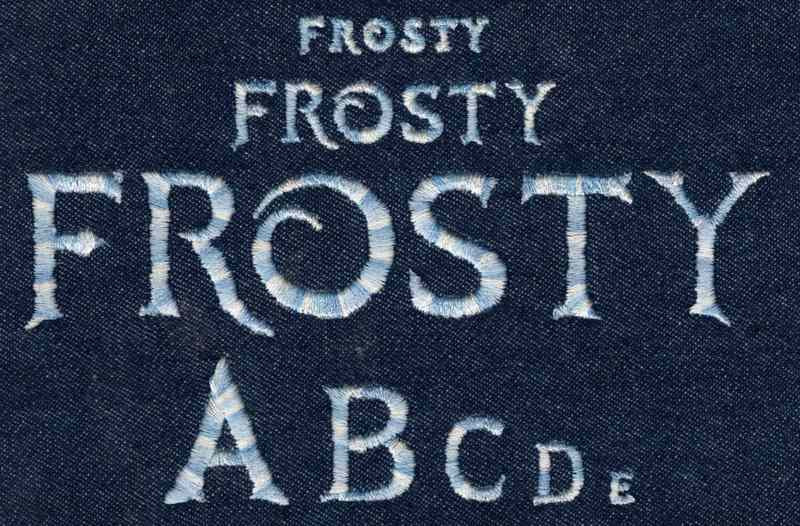
563 Frosty Mini Satin Font
Frosty Mini Satin Font comes in 0.25", 0.5", 0.75", 1" and 1.25" heights based on the capital "A".Includes uppercase letters and numbers (no lowercase letters or punctuation marks). All sizes finished in Satin Stitch. All sizes are included in the purchase price. Characters in the 0.25" and 0.5" sizes have added pull compensation for better stitch out and appear more "bold" than larger sizes. This font was hand drawn by Troy of Jolson's Designs and inspired by a popular animated movie. Edges are bumpy/wobbly intentionally to give the font a cracked ice look.